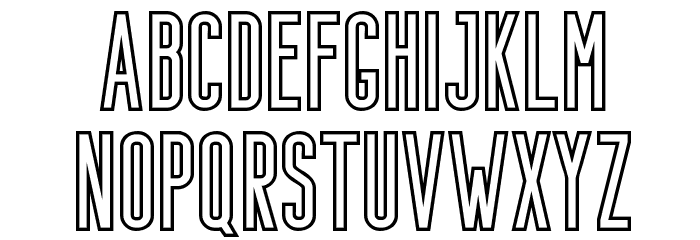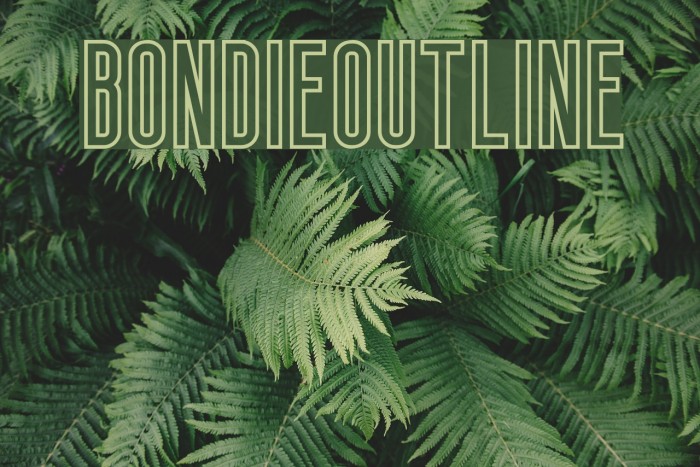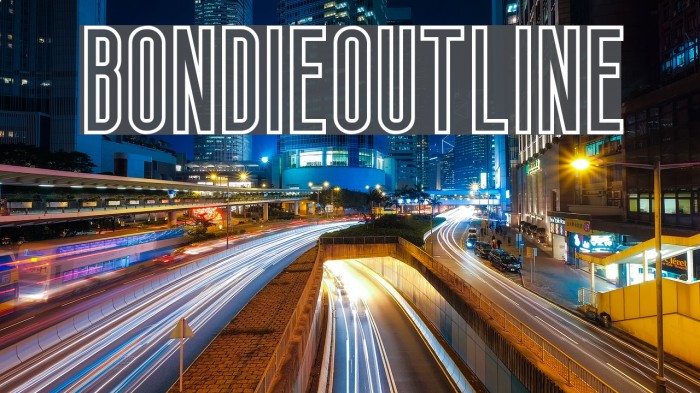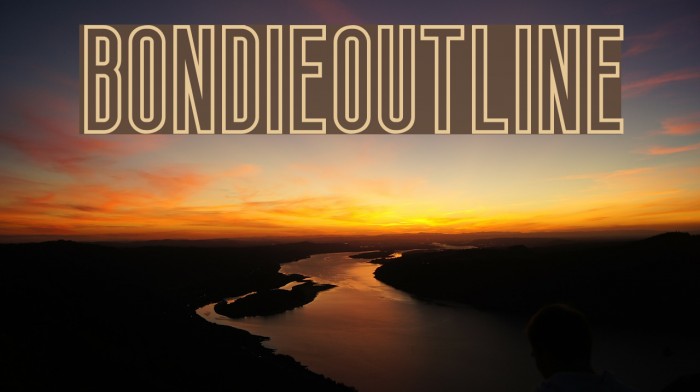
Bondie-Outline Font
Bondie-Outline Description
This font features a bold, uppercase design with a distinct outline style that gives it a modern and eye-catching appearance. The characters are evenly spaced and maintain a consistent height, providing a clean and structured look. The outline effect adds a layer of depth, making it suitable for standout text in various design projects. Its geometric shapes and sharp edges contribute to a contemporary aesthetic, while the uniformity of the letters ensures readability. This font is ideal for creating impactful headlines, posters, and branding materials where a strong visual presence is required.
| Proposed Projects | Ideal for headlines, posters, branding, and any design requiring a strong visual impact. |